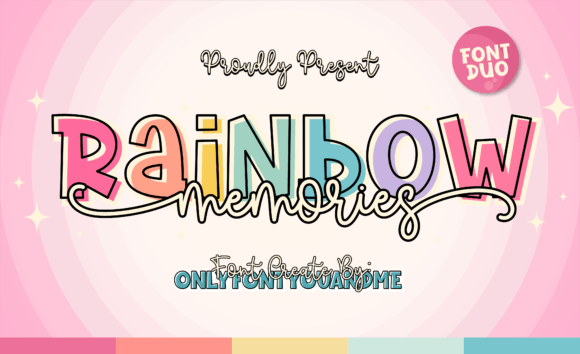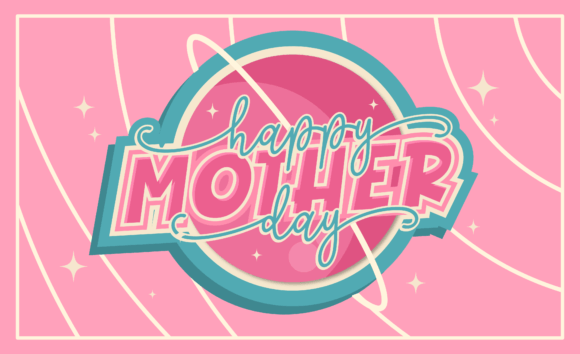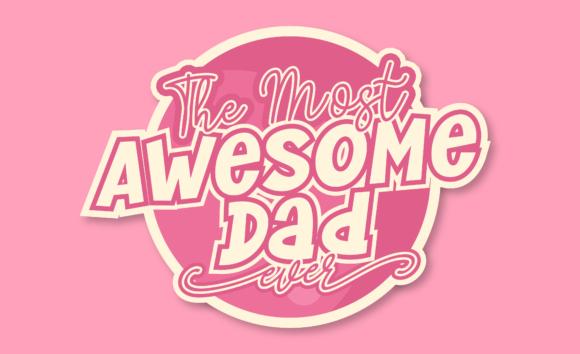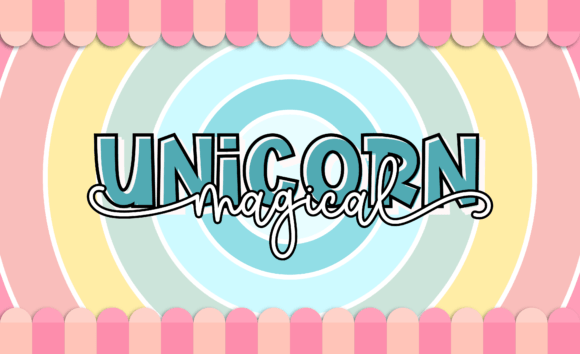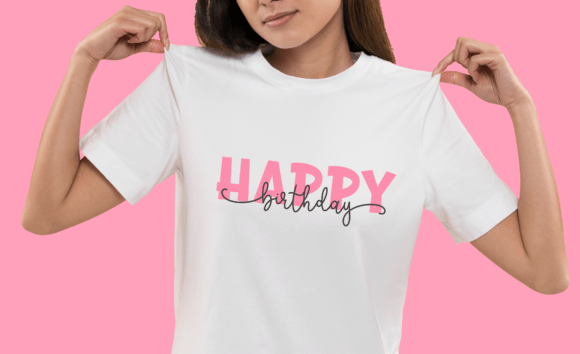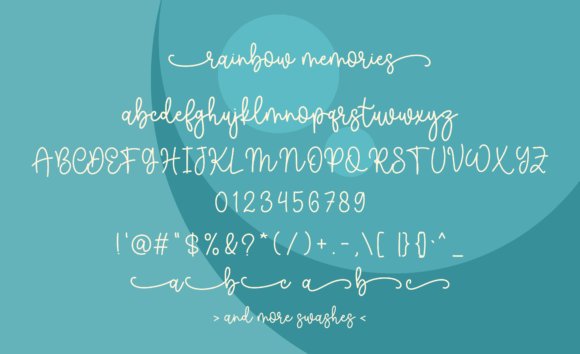
Rainbow Memories Handwritten Duo Font which has a very strong distinctive character and is elegant to use. With flowing curves and smooth lines, each letter tells a story, inviting you to immerse yourself in the art of expression. Whether to adorn wedding invitations, stickers, or heartfelt letters, this font adds a touch of sophistication and charm to any project.
Rainbow Memories Font